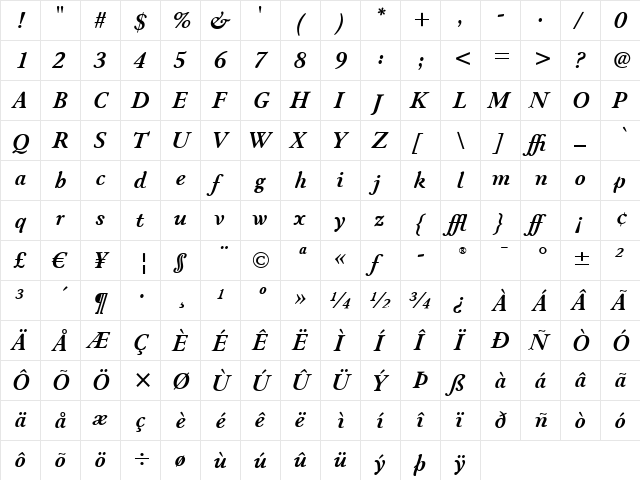
Winchester New ITC Bold Italic
Bold Italic · International Typeface Corporation  ·
Foundry International Typeface Corporation
Design Context for Winchester New ITC Typeface
Winchester New ITC takes a measured approach to typography — its balanced proportions and neutral character make it a reliable workhorse for both digital and print work. Its italic angle brings a sense of urgency and motion to the letterforms. The heavy weight commands attention and anchors typographic hierarchies.
Pro Tip: Use Winchester New ITC for emphasis, pull quotes, and subheadings where its slanted energy can add rhythm to the layout.